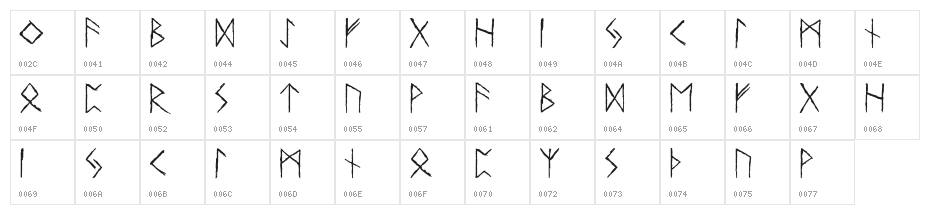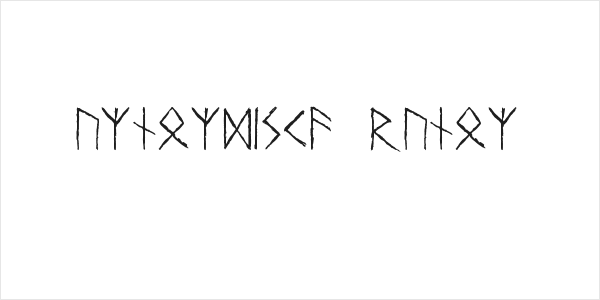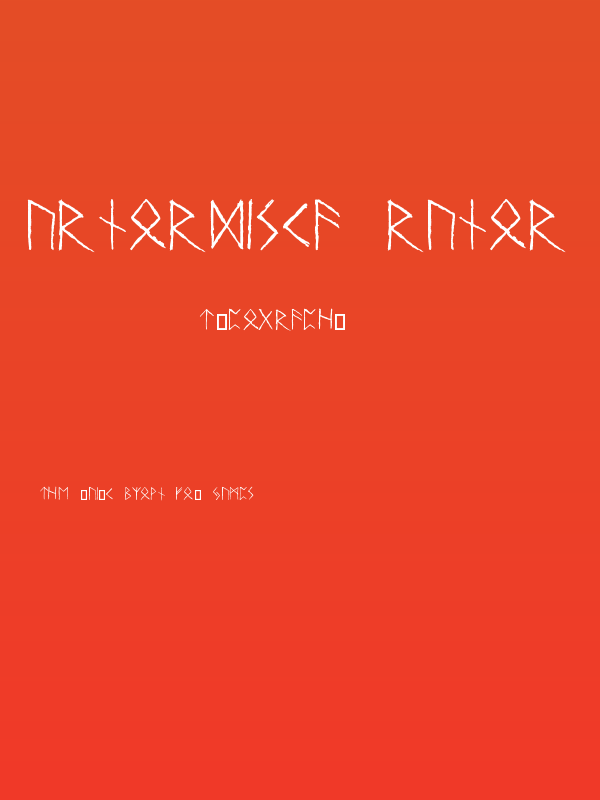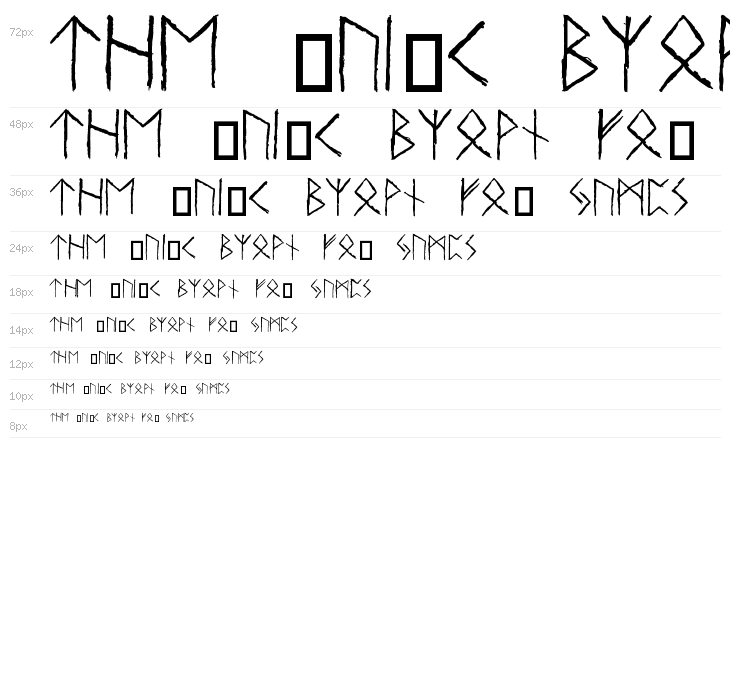
Urnordiska Runor Font
Urnordiska Runor Description
This font is inspired by ancient runic alphabets, featuring angular and linear characters that evoke a sense of historical mysticism. Each letter is crafted with sharp edges and straight lines, reminiscent of inscriptions carved into stone or wood. The characters are uniform in height, with a consistent stroke width that gives the font a balanced and cohesive appearance. The overall design is minimalistic yet striking, capturing the essence of early writing systems used by Germanic tribes. This font is perfect for projects that aim to convey a sense of antiquity, mystery, or cultural heritage.
| Use Case | Logos, Titles, Themed Designs |
| Proposed Projects | Ideal for historical documentaries, fantasy novels, themed events, or cultural exhibitions. |